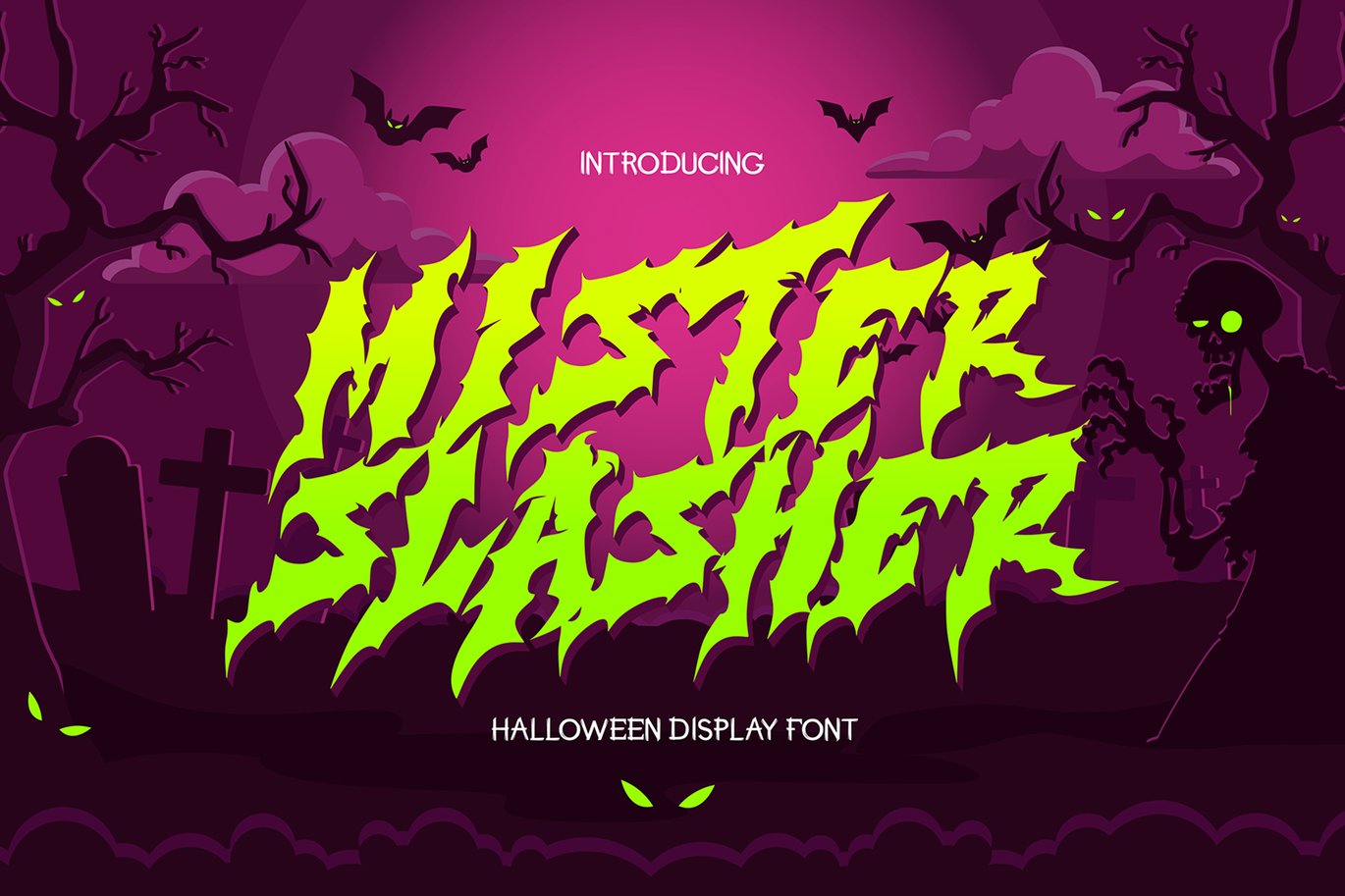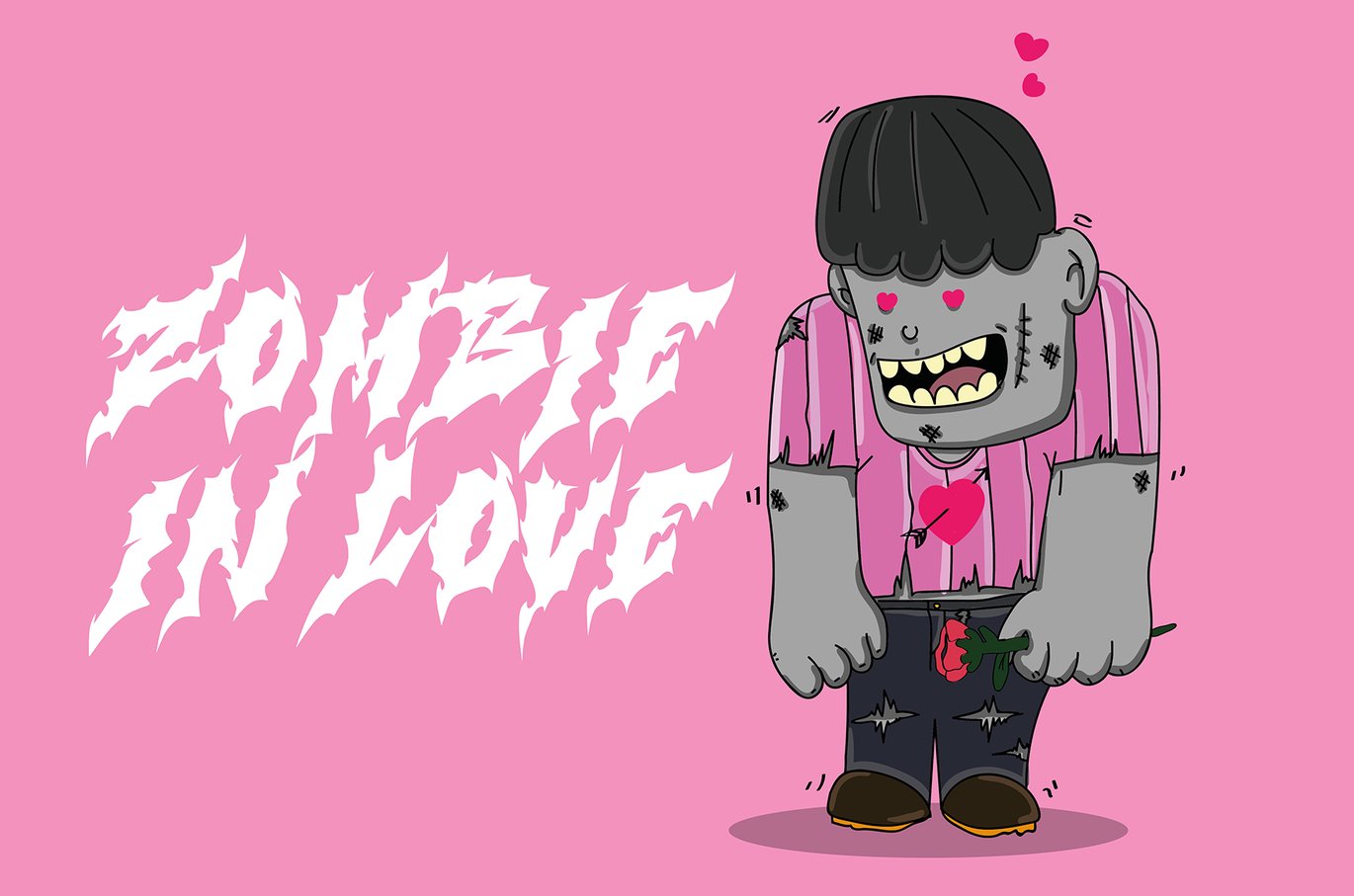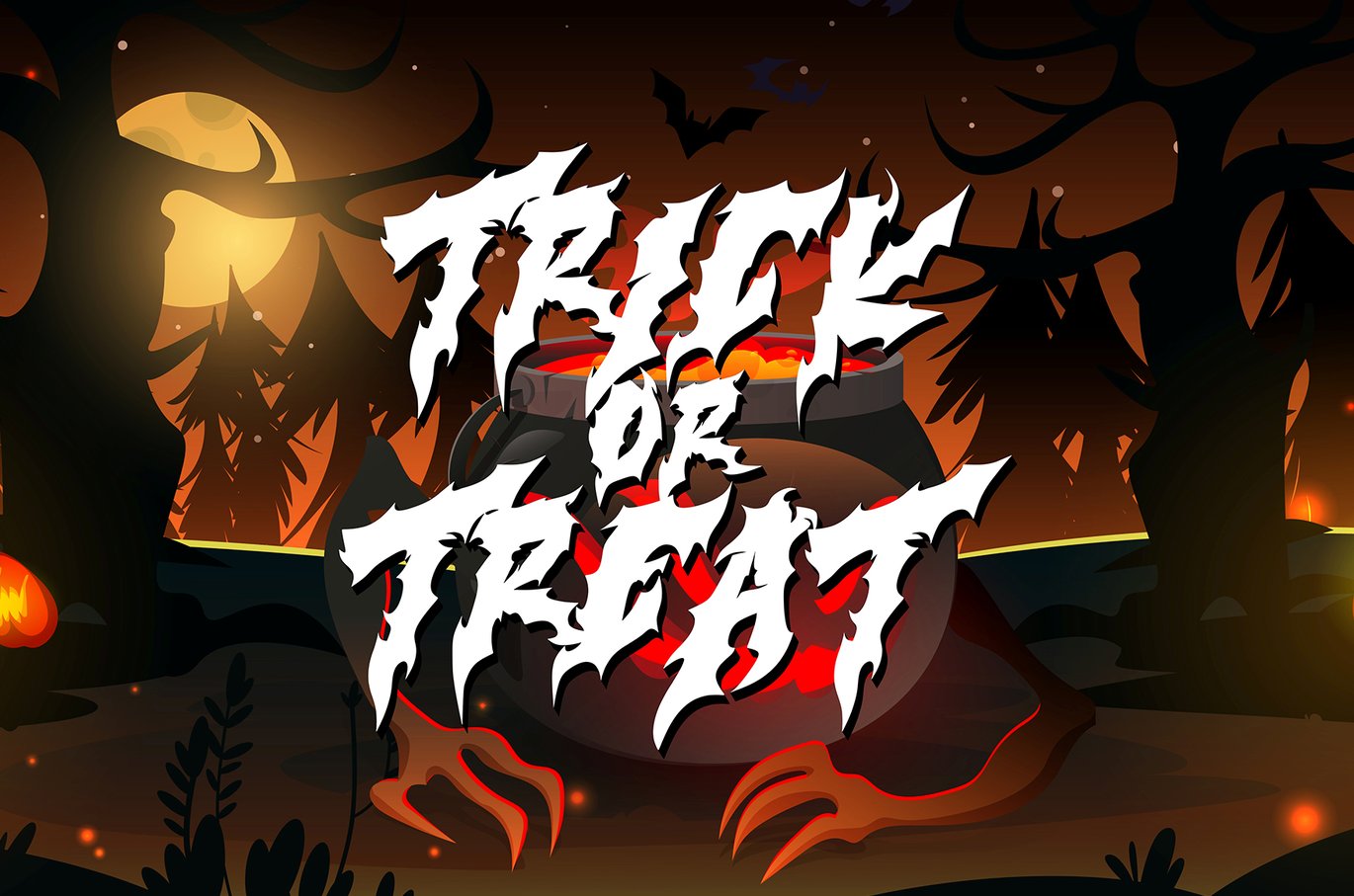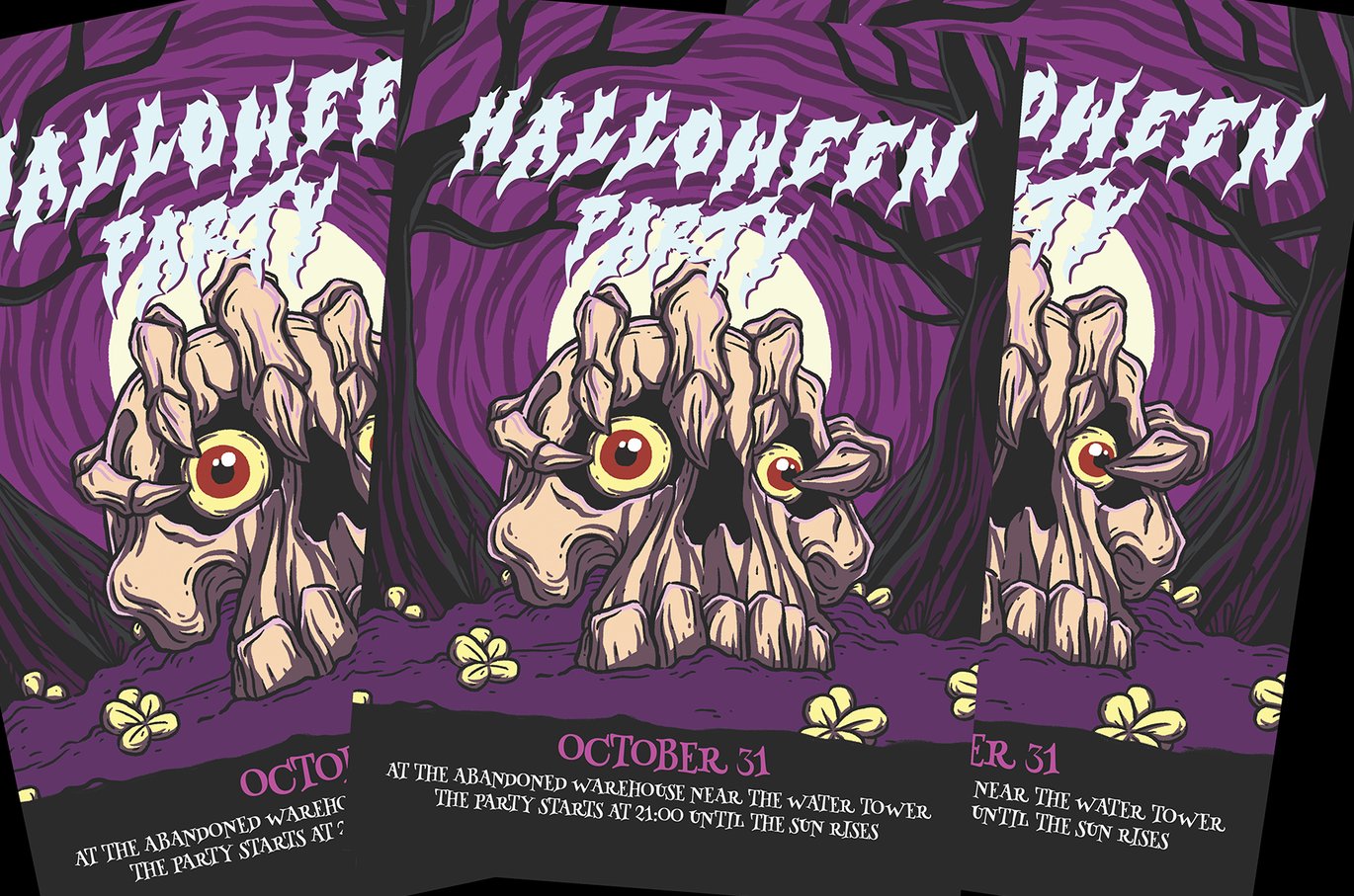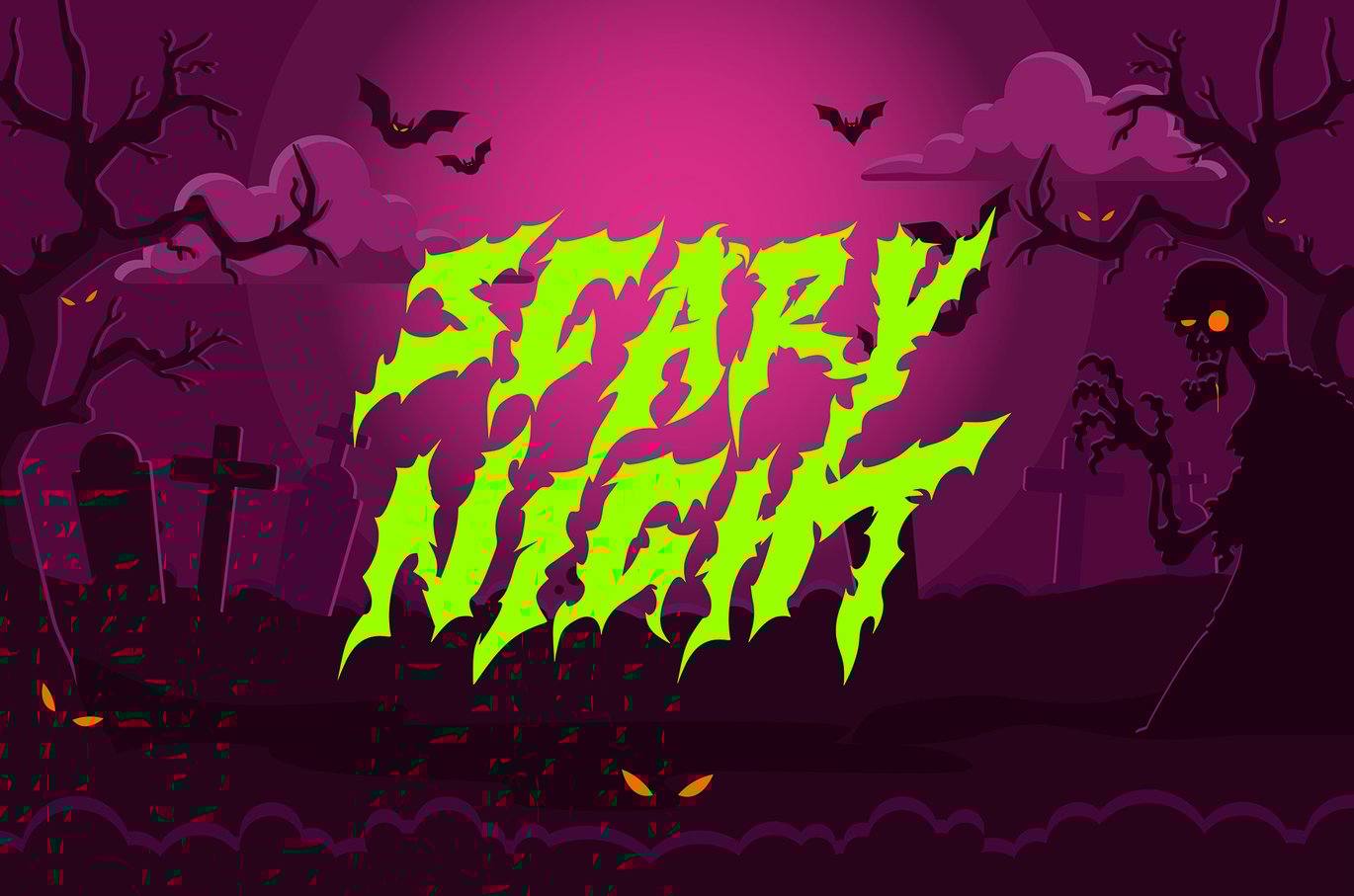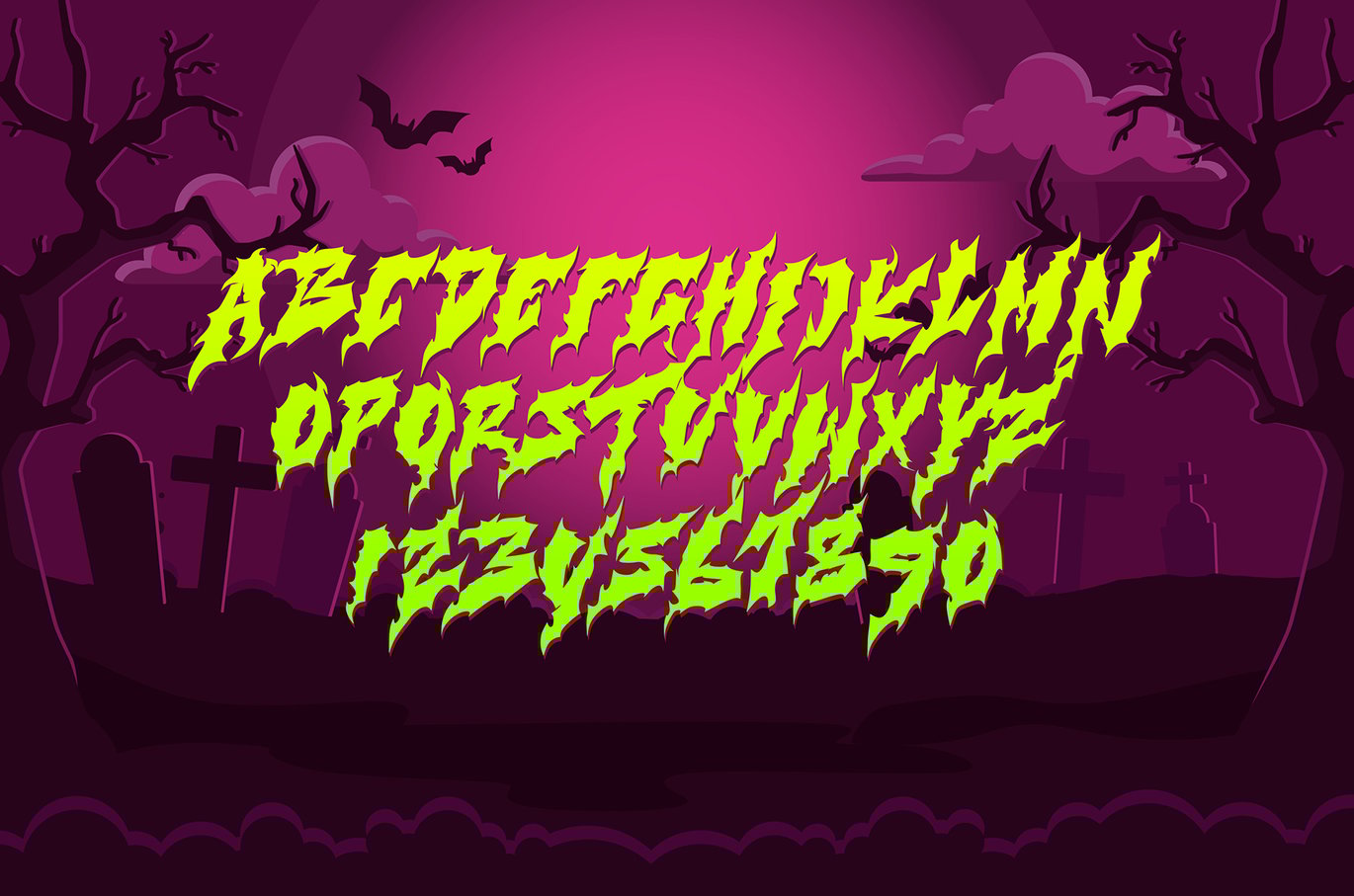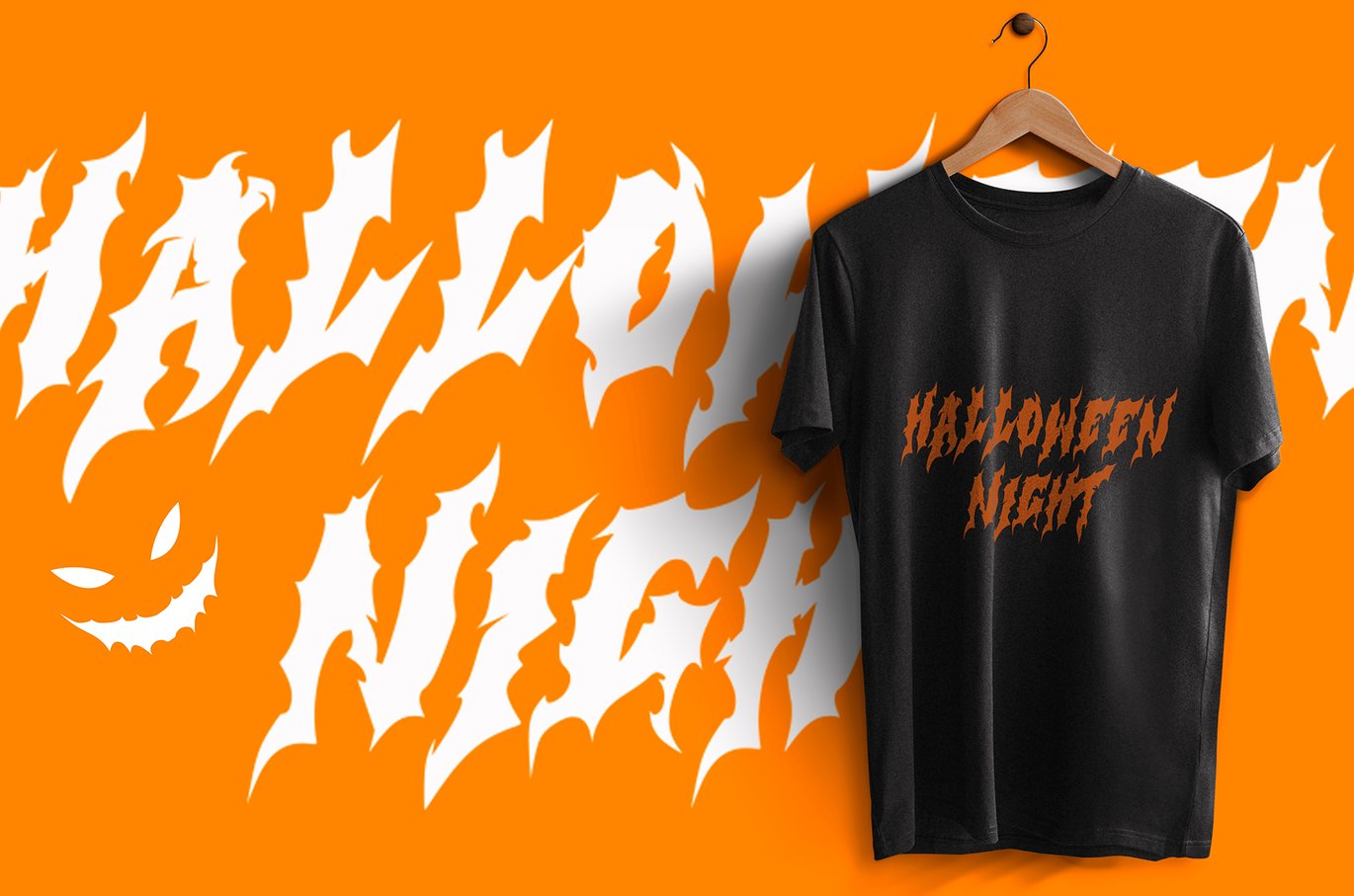
Mister Slasher – Halloween Font
Hello, this is Mister Slasher, a Unique display font that is prepared to welcome Halloween.
Mister Slasher comes with an awesome horror style, making it very perfect to use for quotes, logotypes, badges, labels, packaging, or simply use in your next design project. Especially during Halloween celebrations.